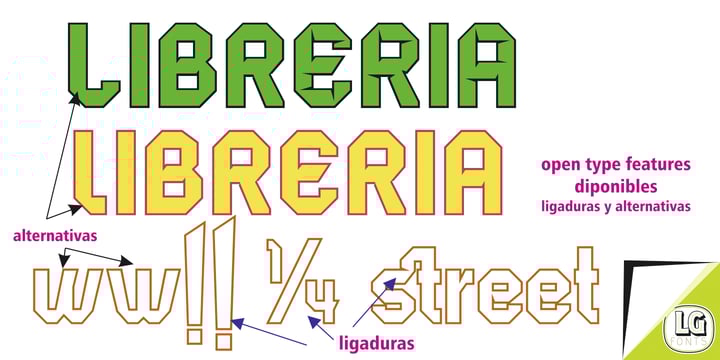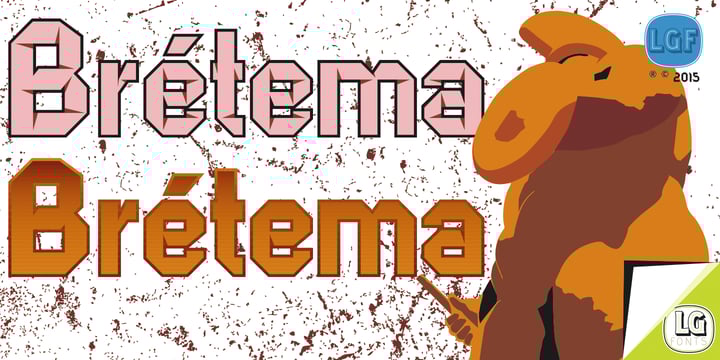
About LGF A LAGE LOGO Font Family
A.LAGE typography was created by Manuel Lage in 1992 to create the logo of the Printing A. LAGE, initially was not a typography, only five glyphs created expressly, representing the press of a printing press, and the paper in the part central and hollow of each glyph, and an "L" representing the blades of a typographic machine Heidelberg, [which in turn was no more than a version of drawings of sources that I do to my notebooks in the school, take advantage of sheeps]. Later, in 1994, the rest of the glyphs were defined, including the "L", leaving the logo as a modified glyph and giving a personal touch to the logo. Any version of that type is available for free for personal use by some websites. That typography had different dimensions, perhaps less compensated, with less careful measures, surely by the more limited knowledge of the author in those years. In 1996 work began to re-draw the glyphs, creating a typography (I think it) better compensated, named LGF A LAGE LOGO, more attractive and with more personality. At the same time that this work was done, a typeface appeared in which paper was more protagonist, and inspired by the effect of papyrus or origami, with three-dimensional effect, and that could also be combined with the original source, the two additional files called LGF A LAGE LOGO CENTURY, that although departing of the logo of our small printing house, is not part of the logo (to this day) but is clearly part of the printing press founded by my father. Several versions were made and now this version (3.0) is finished in the year 2016.